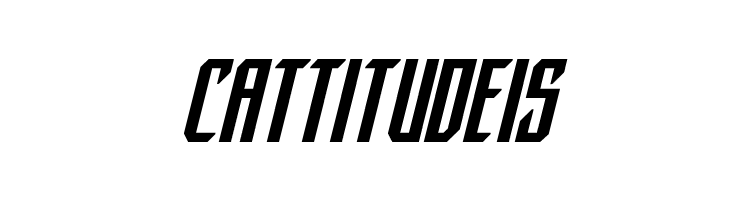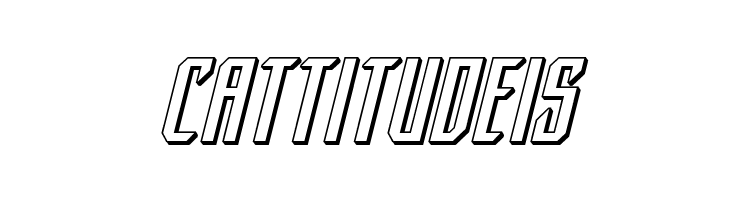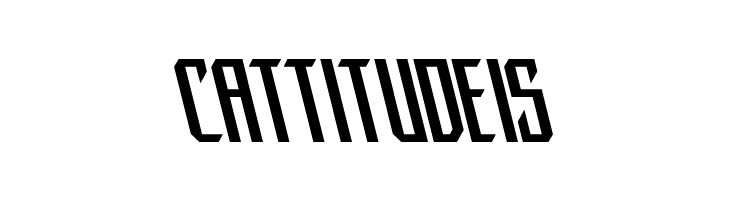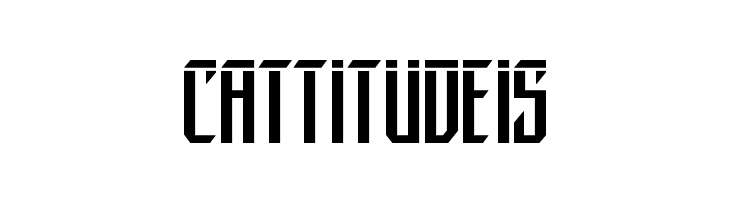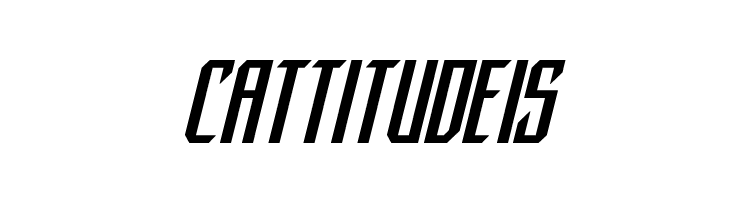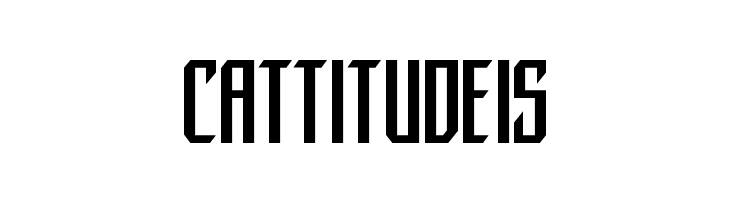
A bold, dynamic font with sharp, angular strokes and a graffiti-like style.
A bold, futuristic font with sharp, angular edges and a geometric style.
A futuristic, geometric font with a tech-inspired design.
A decorative, futuristic font with abstract geometric shapes.
A futuristic, geometric font with bold, angular letterforms.
A bold, futuristic font with geometric shapes and sharp angles.
A bold, italicized font with a futuristic, angular design.
A futuristic, geometric font with a condensed and angular design.
A bold, futuristic font with a condensed and geometric style.
A futuristic, bold, and italicized font with a condensed design, ideal for tech and modern projects.
A futuristic, condensed italic font with sharp, angular edges.
A sleek, futuristic italic font with sharp angles and smooth curves.
A bold, angular font with sharp edges and a futuristic style.
A bold, geometric font with a futuristic, industrial style.
A modern, geometric sans-serif font with a clean and structured design.
A decorative set of characters resembling stylized faces within cloud-like borders.
Whimsical dingbat font with cyclops and monster illustrations.
A bold, decorative font with playful illustrations on each character.
A bold, ornate Blackletter-style font with intricate, gothic details.
A classic blackletter font with ornate, angular designs and high contrast strokes.
A modern, geometric font with clean lines and consistent stroke width.
A bold, rounded geometric font with a playful yet robust style.
A decorative script font with elegant loops and swirls, perfect for creative projects.
A whimsical and decorative script font with elegant loops and swirls.
A bold, angular font with a futuristic, graffiti-inspired style.
A bold, distressed font with a rugged, vintage appearance.
A bold, textured font with a vintage, distressed style.
A bold, textured font with a vintage, rugged style.
A sophisticated script font with elegant, flowing cursive letters.
A refined, elegant script font with flowing, cursive strokes.
A graceful script font with flowing, cursive characters and elegant loops.
An elegant script font with flowing swashes and intricate details.
A bold, modern font with clean lines and geometric structure.